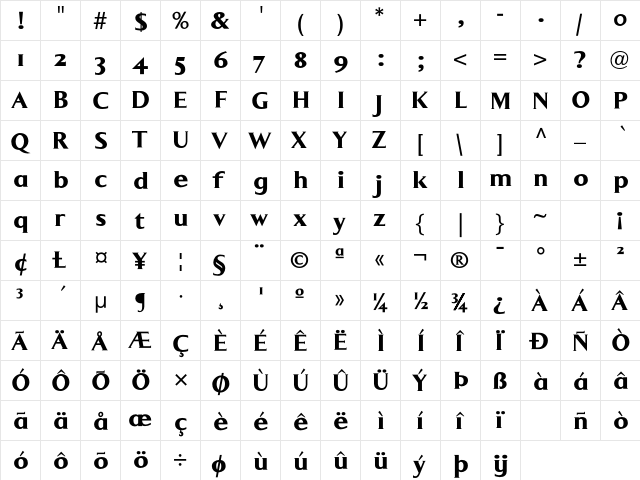
LuMarcLL Bold
Design Context for LuMarcLL Typeface
LuMarcLL offers clean, dependable letterforms without strong stylistic allegiance, making it a practical choice for designers who need flexibility. Its bold stroke weight gives it real presence on the page.